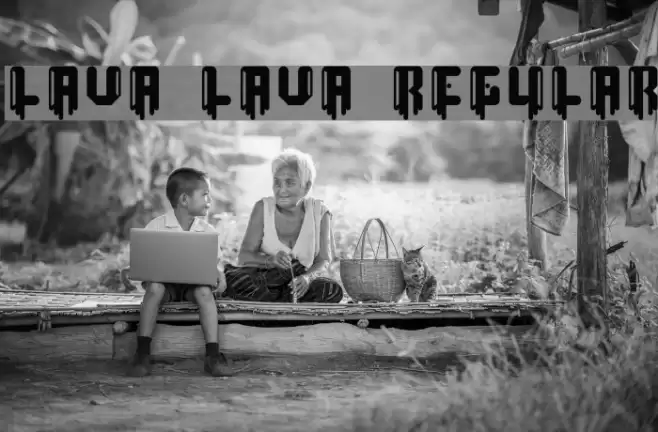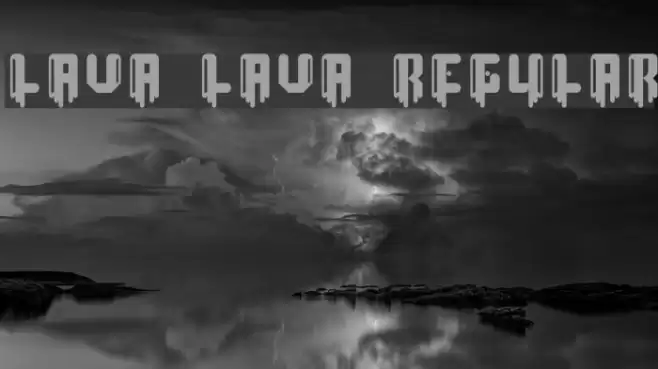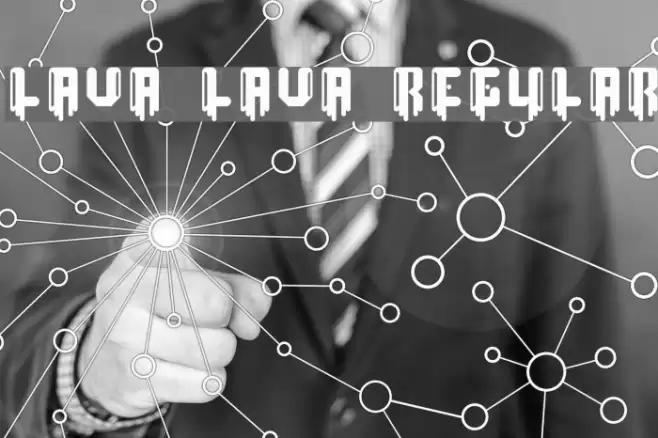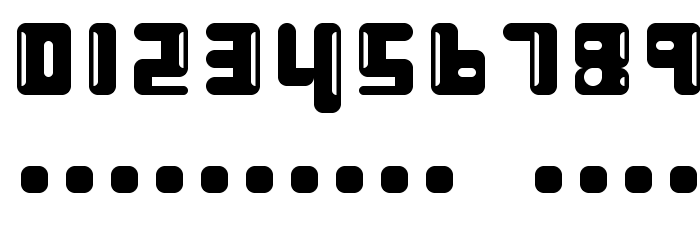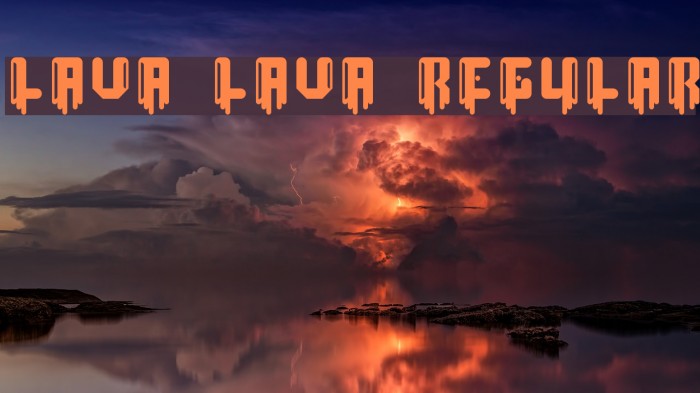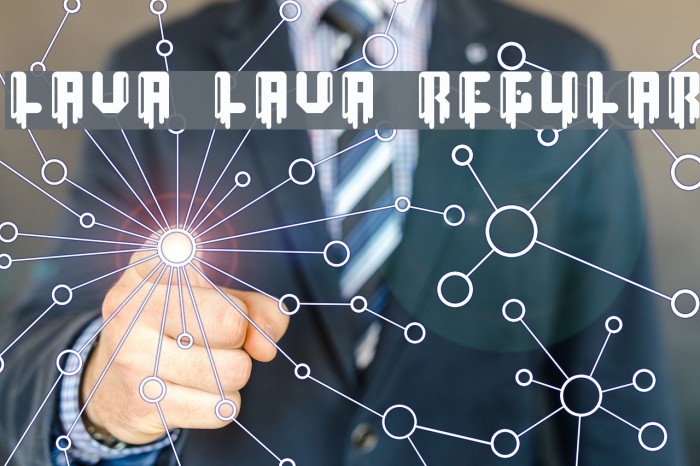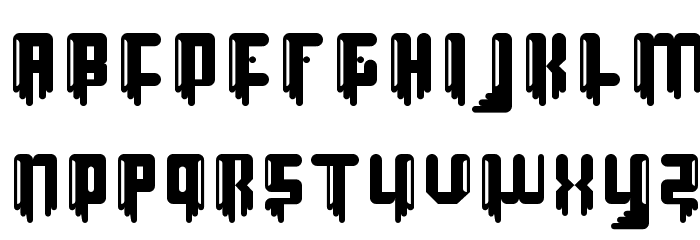
lava lava Regular Font
lava lava Regular Description
This font features a bold and dramatic style with a unique dripping effect that gives it a molten, liquid appearance. The characters are thick and blocky, with rounded edges that enhance the fluid look. The uppercase and lowercase letters maintain a consistent design, while the numerals and special characters follow the same theme, ensuring a cohesive appearance. The font's distinctive style makes it ideal for eye-catching designs that require a touch of creativity and boldness.
A bold, dripping font with a molten, liquid appearance from Uncategorized fonts.
- Proposed Projects: Ideal for Halloween-themed designs, horror movie posters, edgy branding, or any project needing a dramatic and eye-catching font.